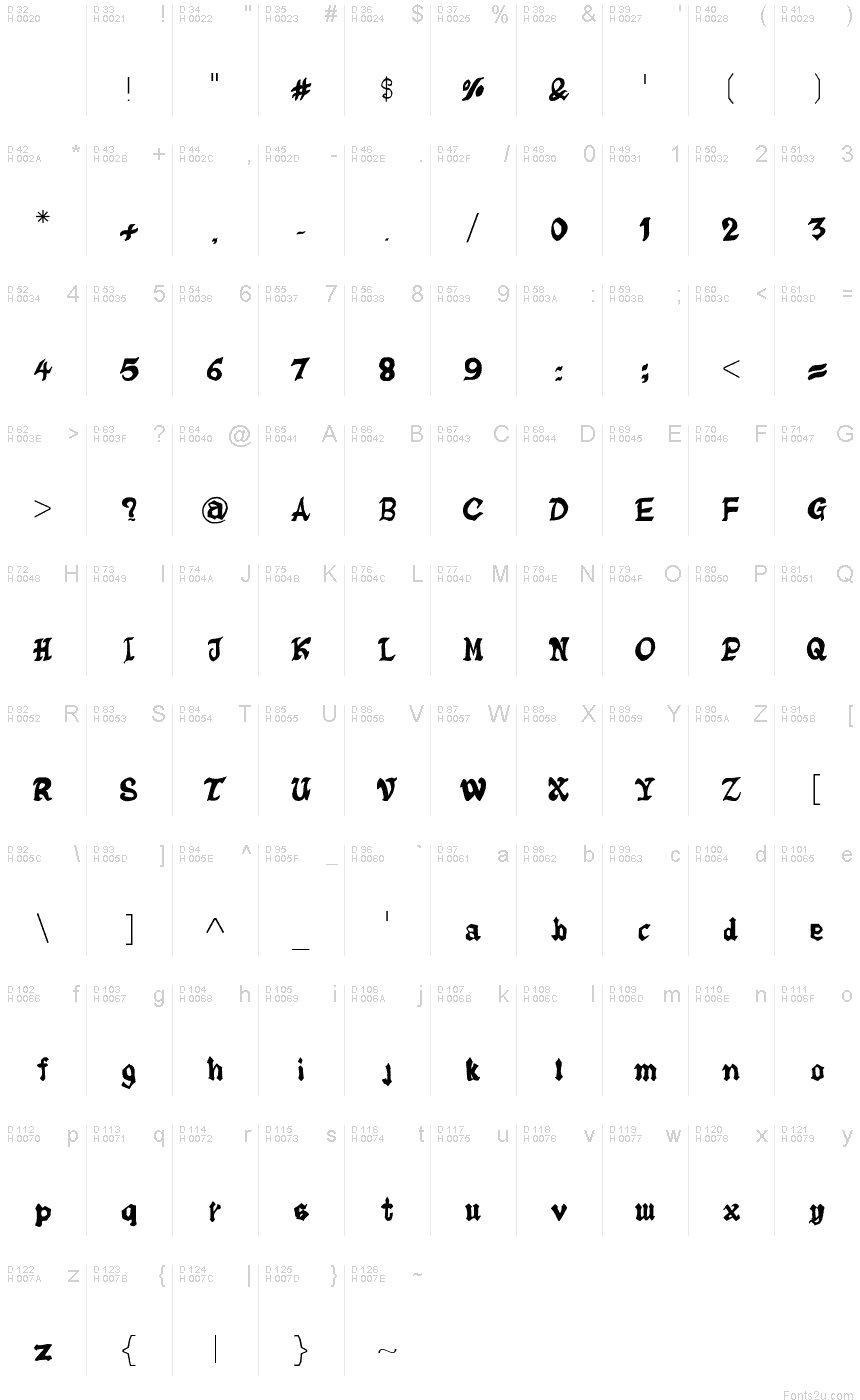
Hand Written by Sutthichai Udomsap, credited to Prachid Tinnabutr and WittyComputer, is a free comic display font with an exaggerated blackletter look. Broad, uneven strokes end in hooked feet and sharp, wandering points. The letters feel deliberately unruly.
A novelty burger shop or playful medieval-themed venue could use it for branding that leans into theatrical humor. Its dark silhouette and crooked details also fit comic covers and event posters built around parody, monsters, or mock history. Beyond those settings, the lettering could give band merchandise and game graphics the look of a hand-drawn emblem.